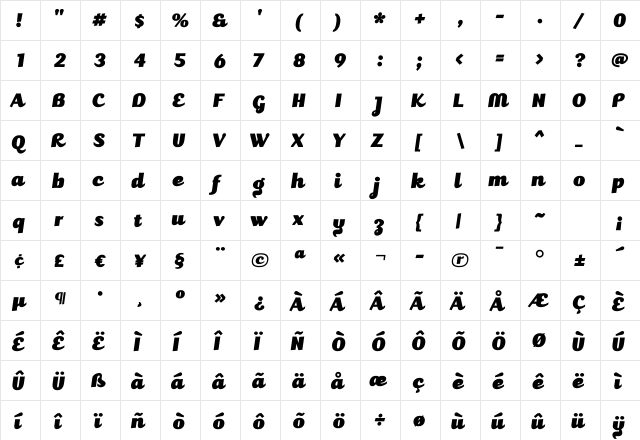
JuicyBlack Italic Regular
Design Context for JuicyBlack Italic Typeface
JuicyBlack Italic offers clean, dependable letterforms without strong stylistic allegiance, making it a practical choice for designers who need flexibility. The slanted form adds forward momentum and visual energy.
Pro Tip: Try JuicyBlack Italic for annotation and caption copy alongside an upright companion — the contrast in angle creates a dynamic but ordered typographic system.